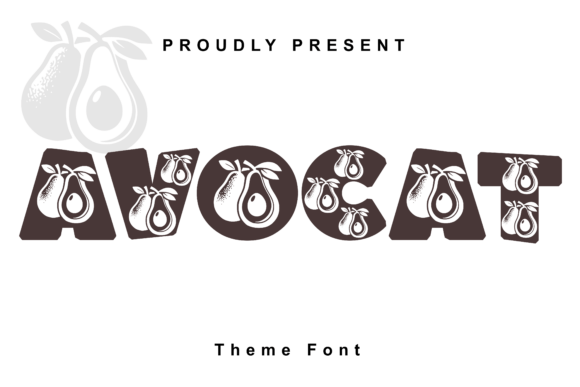
Discover the Whimsical World of Avocat Font
I’ll never forget the moment I stumbled upon the Avocat font. I was working on a children’s book project, and my client requested a font that would bring their story to life. I had been searching for what felt like hours, but nothing seemed quite right. That was until I discovered Avocat. Its playful, whimsical charm instantly captivated me, and I knew I had found the perfect fit. In this article, we’ll dive into the enchanting universe of Avocat and explore how this delightful font can elevate your designs.
An Honest Review of Avocat Font
What I Love About Avocat ✨
• ✅ The perfect blend of childlike whimsy and sophistication
• ✅ Exquisite attention to detail in every letterform
• ✅ Works beautifully for a wide range of creative projects, from educational materials to branding campaigns
• ✅ Easy to read and understand, even in smaller sizes
While Avocat is an exceptional font, there are a few minor quirks to be aware of:
• 🤔 Some users may find the font’s playful nature too informal for certain projects
• ⚠️ Limited availability of stylistic alternates, which may limit design flexibility
A Practical Guide to Using Avocat Font
The Story Behind Avocat Font
Avocat was designed with the intention of capturing the magic and wonder of childhood. Its creator, a talented type designer, drew inspiration from the playful, imaginative world of children’s literature. With Avocat, the goal was to craft a font that would bring a sense of joy and creativity to designs, while maintaining a level of sophistication and elegance.
Author Infontree
What makes Avocat font unique? Avocat’s unique blend of childlike whimsy and sophistication sets it apart from other fonts.
Is Avocat suitable for body text? While Avocat is primarily designed for display use, it can be used for body text in certain contexts, such as children’s books or educational materials.
With Avocat font, you can add a touch of magic to your designs and bring a sense of wonder to your audience. Whether you’re a designer, crafter, or creative hobbyist, Avocat is an excellent choice for any project that requires a dash of whimsy and charm.